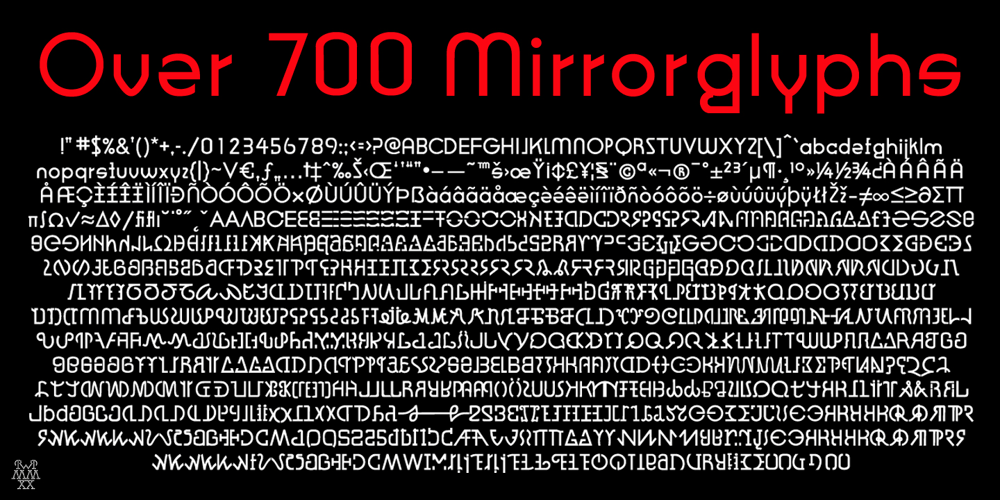
Mirror
Mirror font
Mirror Font Family was designed by Robert Petrick and published by Robert Petrick. Mirror contains 1 styles and family package options. I designed “Mirror Font” with the idea that it could function as standard font but it also can function as a creative tool to create interesting letter form logos and titles. It is readable even at small sizes and would make an interesting addition to your library of “Futurist” font styles. See more graphic examples of Mirror Font in Action! on YouTube.